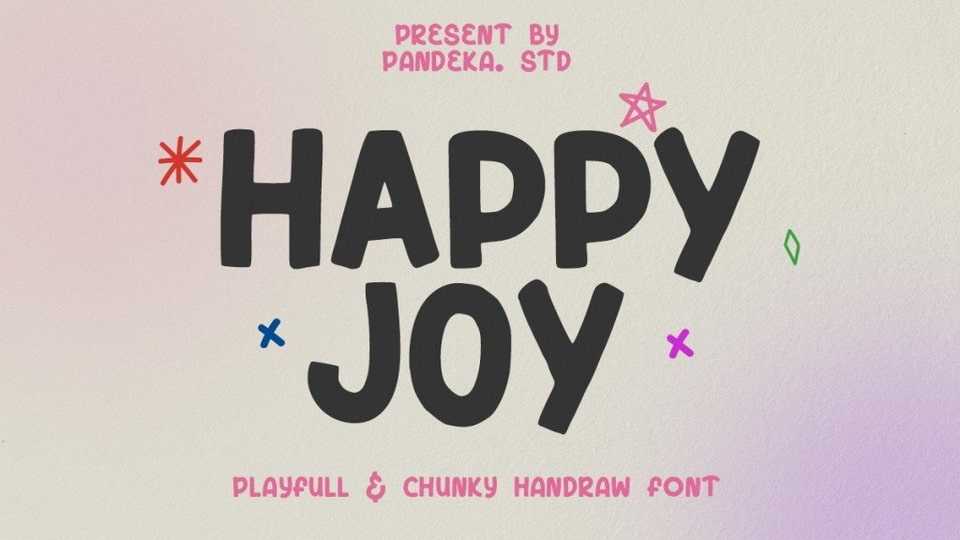
Download Happy Joy font, a playful, chunky typeface and graphics! This adorable all caps font is perfect for creating fun Instagram posts, greeting cards, stickers.